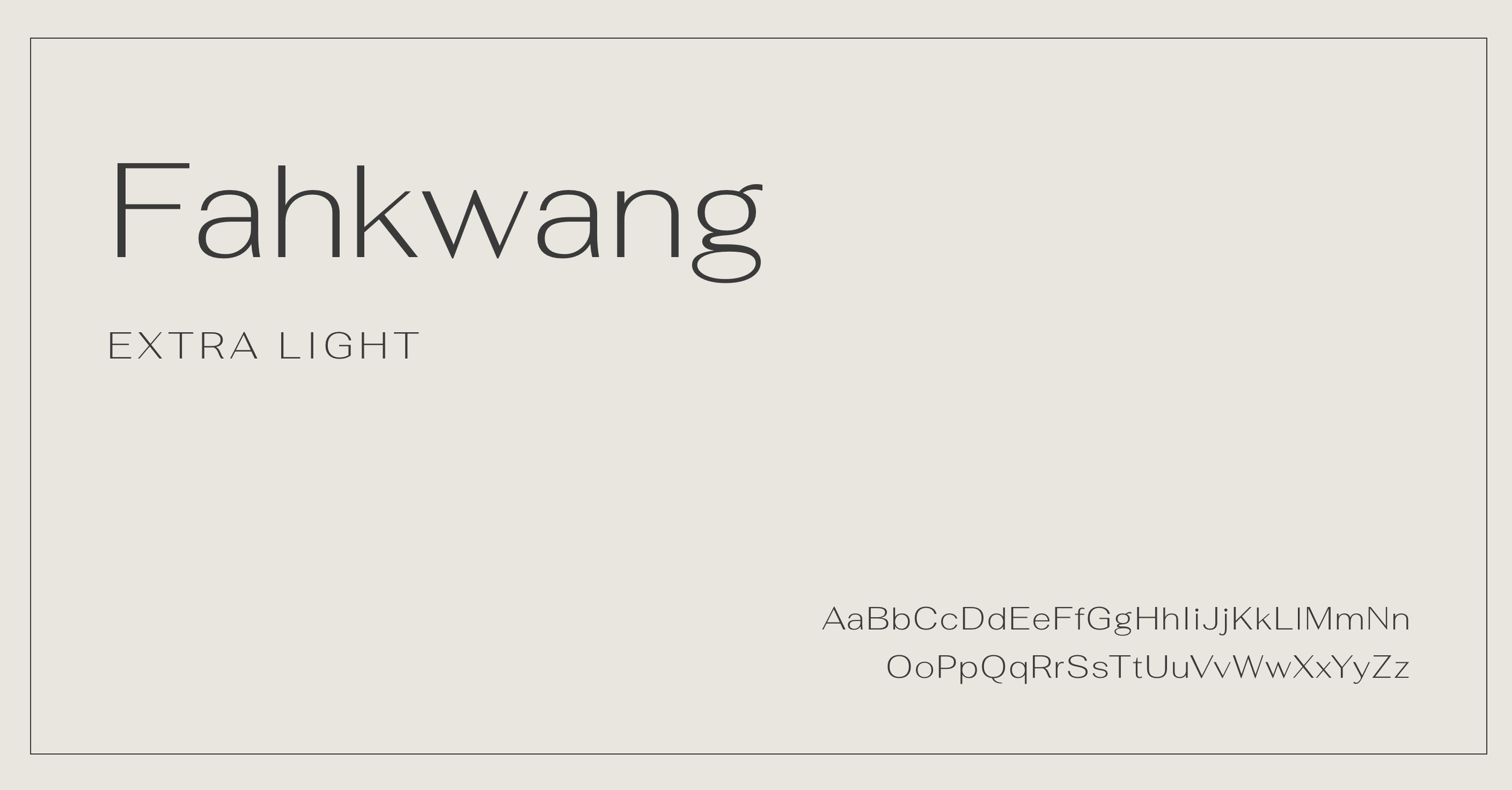
Summer is in full swing, and I’ve been inspired lately from clean, minimal and friendly san serif typefaces. San serifs are considered more modern than serifs, as they lack the strokes that distinguish a serif typeface. The use of the French word “sans,” which means “without.” I’ve always had a soft spot in my studio for a sleek, modern sans serif, and today I’m sharing 6 favorites that won’t break the bank, as they are all from Google fonts.
One.
Poppins
Poppins has been in my rotation on a handful of projects now. It’s such a versatile font with multiple weights (9 different weights ranging from 100-900), clean feel and it’s very legible. A win-win in my books. I’ve used it from package design, website and collateral, as it fits well with a variety of other fonts.
two.
Sen
Sen offers a tidy, slightly unique yet approachable vibe, perfect for those who want to present minimally and modern online. I especially enjoy the Sen font in all caps, as it gives off a more high end, premium font style. Again, the Sen font comes in a variety of weights, allowing it to be very flexible with headlines, subheadings and paragraph styling.
three.
Krub
For those in the beauty space, wellness or want a slightly more unique and feminine font, Krub is a great option. Its soft corners give off a fresh, feminine vibe and looks great in lowercase and title case especially. Again, Krub has a variety of weights, but I prefer it on the lighter side.
four.
Fahkwang
Fahkwang is a gorgeous sans serif font that can be a show stopper for headings. The width of the letters add a modern, boutique vibe, allowing for this font to really take center stage. This google font is perfect for contemporary brands, wellness experts or creative design studios.
five.
Noto Sans
Noto Sans offers a neutral and accessible tone, with many weights and styles. And as an added bonus, this google font has a vast library for those who need multilingual support for their design projects. This sans serif font also looks great in italics, which can be tricky to do within sans serif fonts.
six.
Sora
I wanted to include a Google font that looks stunning when used at a heavier weight. Sora fits the bill, as I love how it looks at the medium weight–just bold enough to be a bit edge, but still fresh, modern and contemporary. I could see Sora working nicely for those in the tech space, an app-driven business or a restaurant.